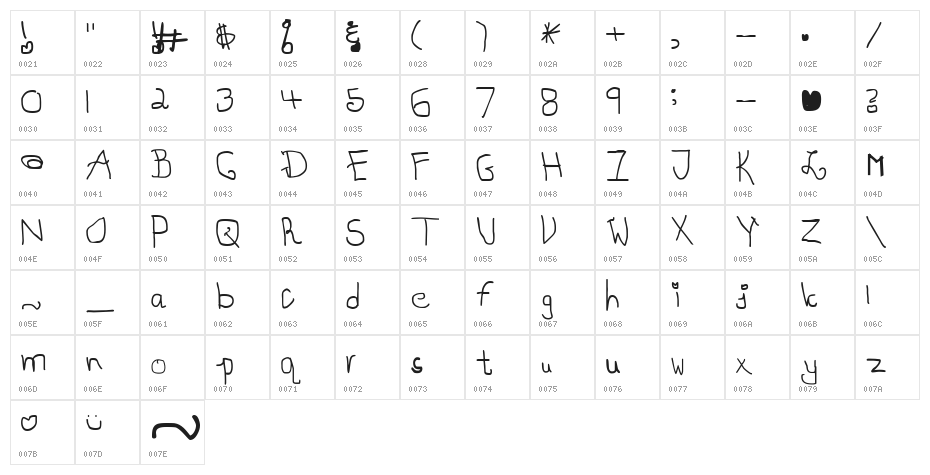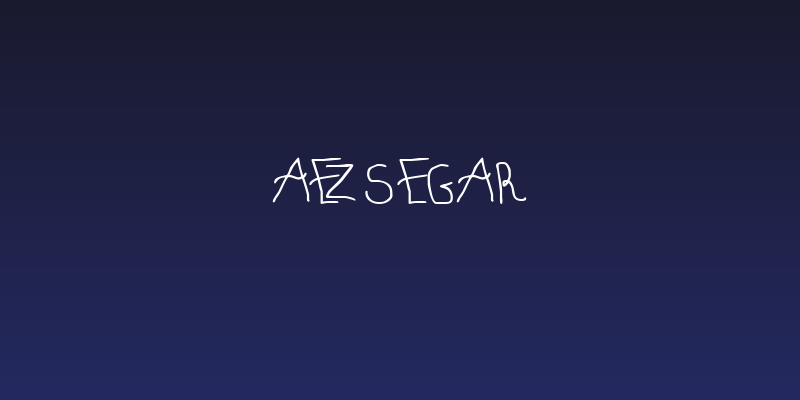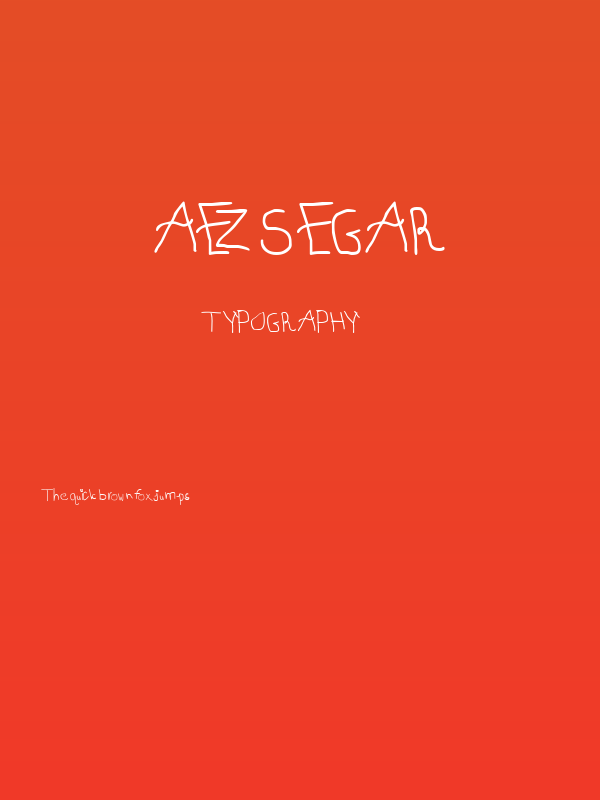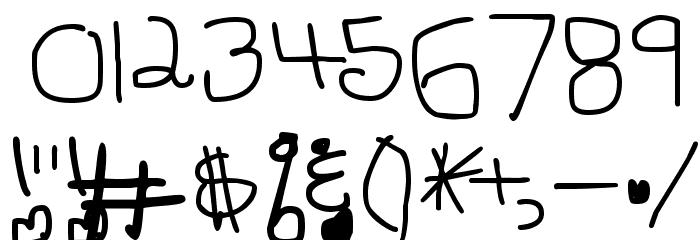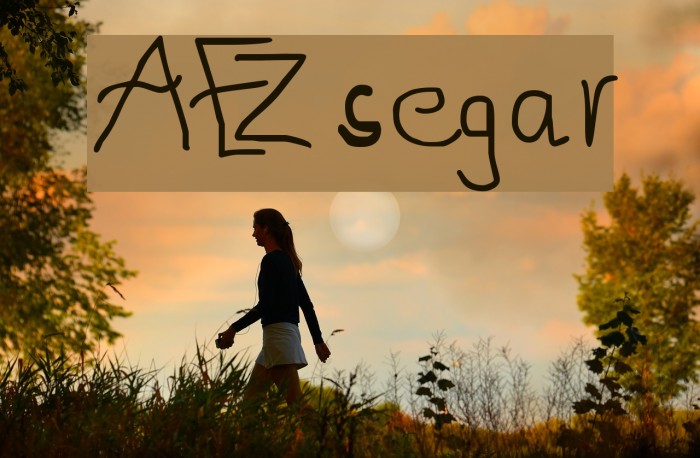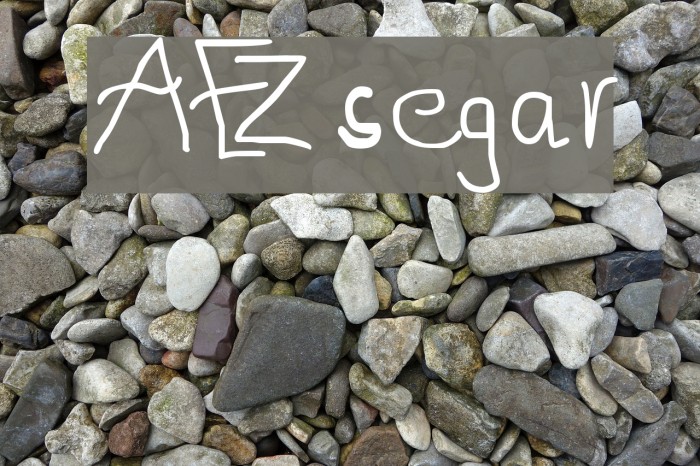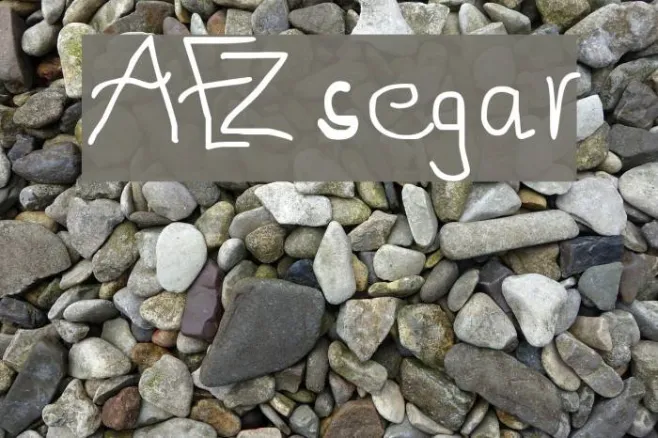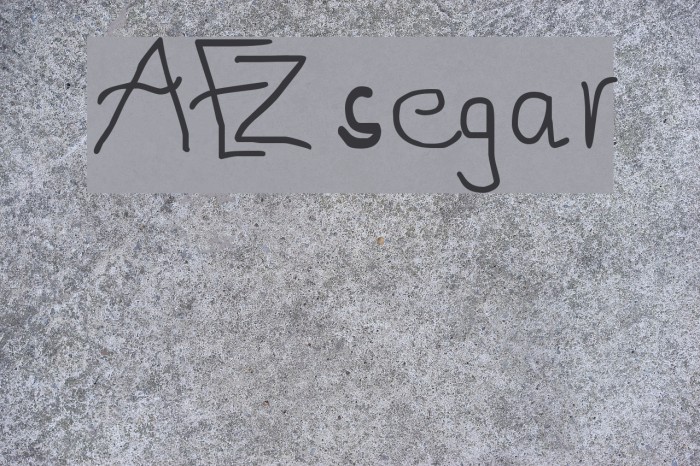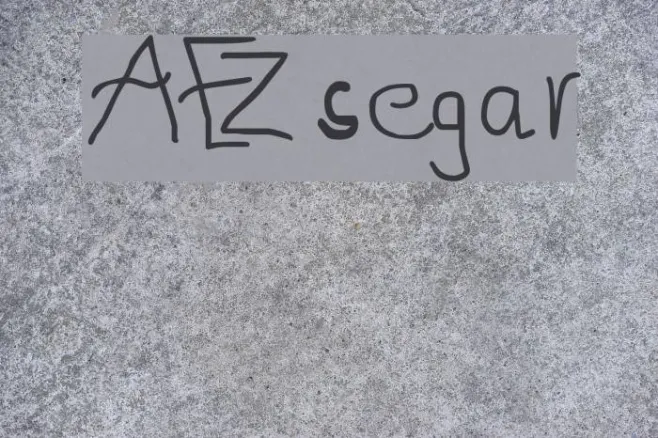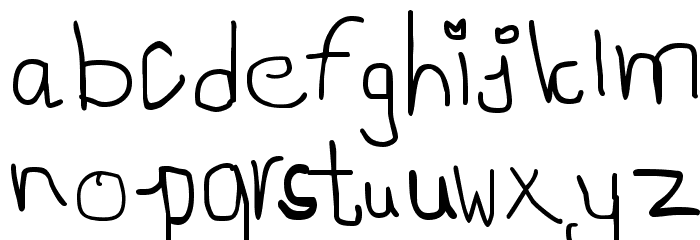
AEZ segar Font
AEZ segar Description
This font exhibits a playful and informal handwritten style, characterized by its irregular strokes and whimsical letterforms. The uppercase letters have a slightly uneven baseline, adding to the casual aesthetic. Lowercase letters maintain a consistent height, with some characters featuring unique embellishments, such as the dot on the 'i' and 'j'. The numbers are rounded and maintain the same playful style, ensuring readability while retaining the font's distinctive character. Special characters are creatively designed, with each symbol reflecting the font's overall quirky and fun nature. This font is ideal for projects that require a personal touch or a sense of whimsy.
| Overall Style | Playful |
| Use Case | Headlines, Informal text, Creative projects |
| Proposed Projects | Ideal for children's books, greeting cards, playful branding, and informal invitations. |